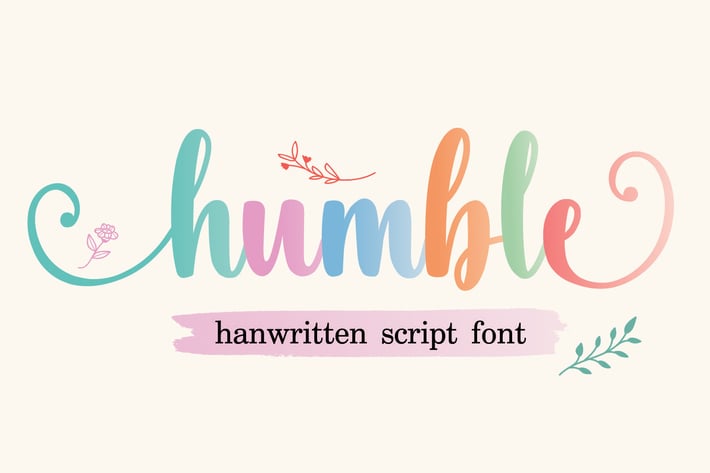
Humble - Modern Script Font
Humble is a flowing handwritten font characterized by its elegant and charming touch, making it perfect for all your favorite projects. Each letter is crafted with unique and beautiful details that bring your designs to life, adding a joyful and romantic flair to any creation.
With PUA encoding, Humble offers easy access to all glyphs, swashes, and ligatures, providing you with seamless customization options. Whether you're designing eye-catching logos, branding materials, or engaging quotes, this font is an excellent choice for enhancing your creative work.
Humble is ideal for a wide range of applications, including wall displays, wedding invitations, social media posts, advertisements, product packaging, labels, photography, watermarks, and stationery. Elevate your projects with the sophisticated and handwritten touch of Humble, and make your designs stand out with its elegant style!